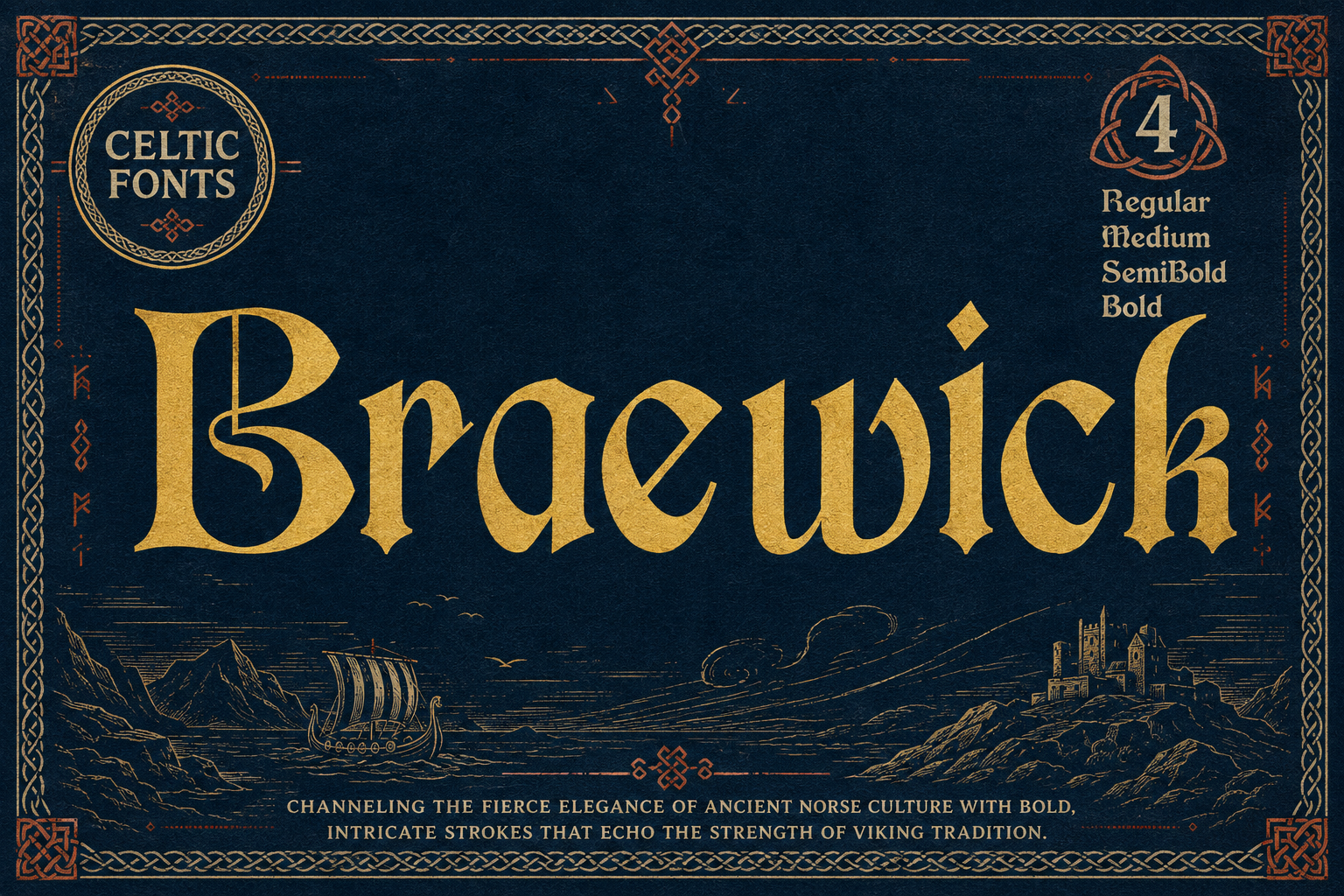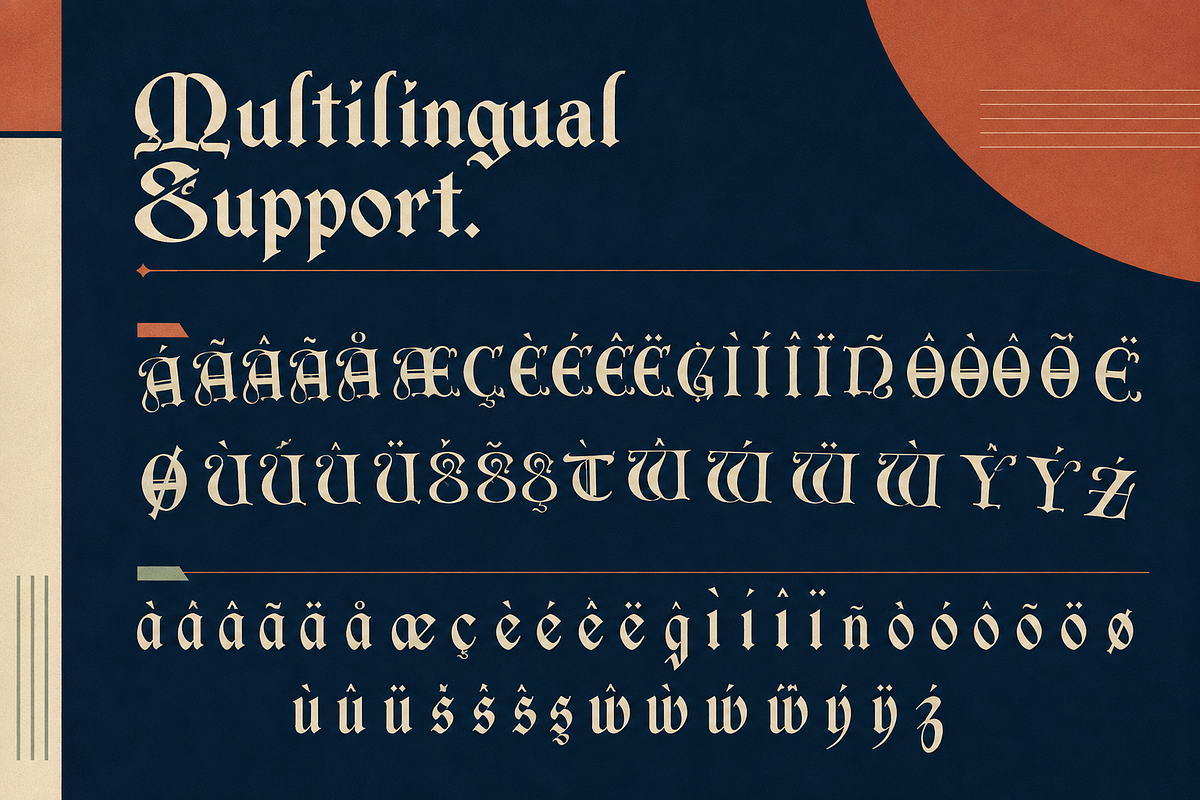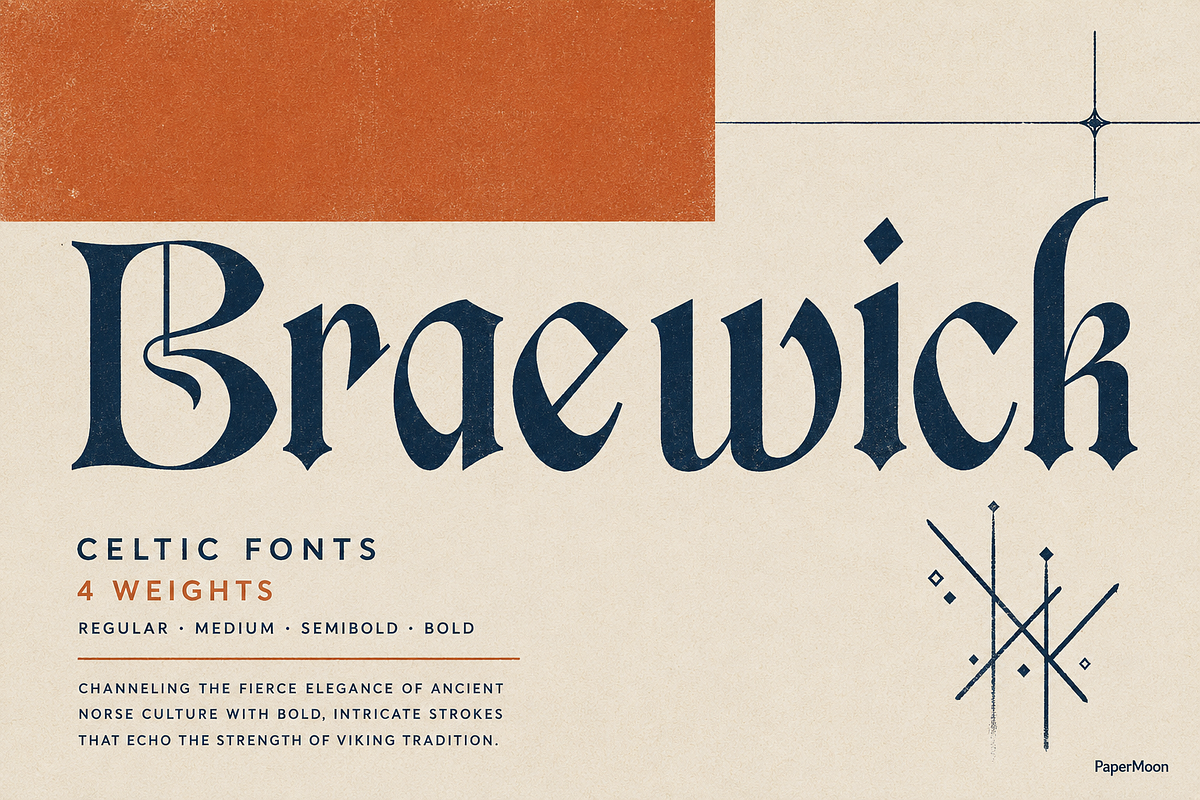
Braewick - Medieval Display Font
Give your headlines a sense of history. Braewick is a rugged medieval display font family with a bold, distinctive presence for fantasy worlds, heritage-inspired branding, and titles that need more character than a standard display face.
You get 4 weights - Regular, Medium, SemiBold, and Bold - with 380 glyphs per style. The family balances an old-world atmosphere with the flexibility you need for modern identity work, editorial layouts, and dramatic visual storytelling. Uppercase and lowercase characters, numerals, punctuation, symbols, accented characters, and stylistic alternates help you build typography that feels considered rather than generic.
4 weights: Regular, Medium, SemiBold, and Bold give you contrast for titles, subtitles, logos, and supporting display text.
380 glyphs per style: A broad character set with uppercase, lowercase, numerals, punctuation, symbols, and accented characters.
OpenType alternates: Stylistic substitutions let you change the tone of selected letterforms and create a more personal wordmark or title.
Multilingual support: Accented characters help extend your layouts beyond basic English text.
Kerning and positioning: OpenType GPOS features help keep display settings balanced and polished.
Use Braewick for fantasy novel covers, historical posters, cinematic headlines, decorative text, logos, invitations, magazine covers, game titles, t-shirts, packaging, and branding. The lighter weights can establish hierarchy, while SemiBold and Bold bring the visual weight needed for a striking cover line or compact logo.